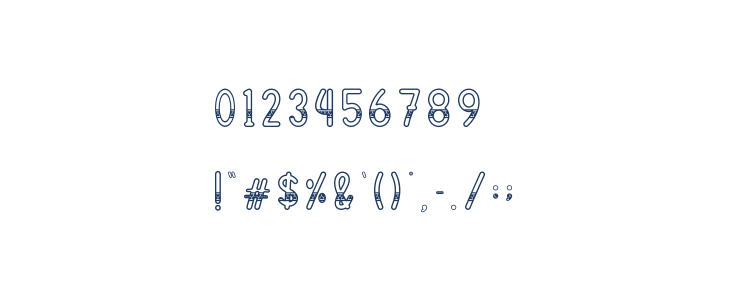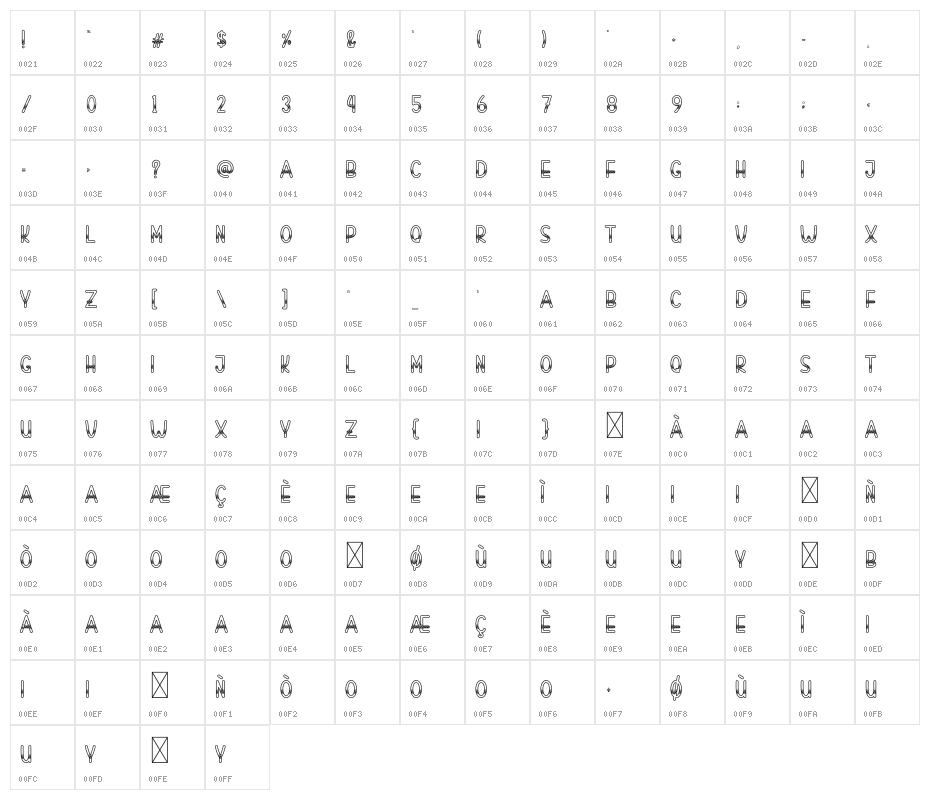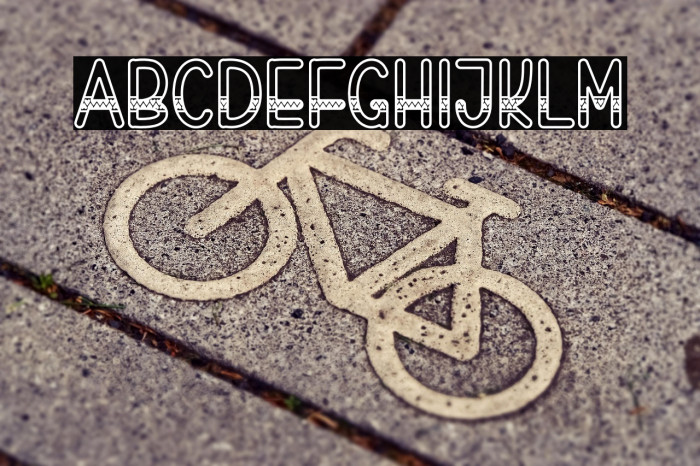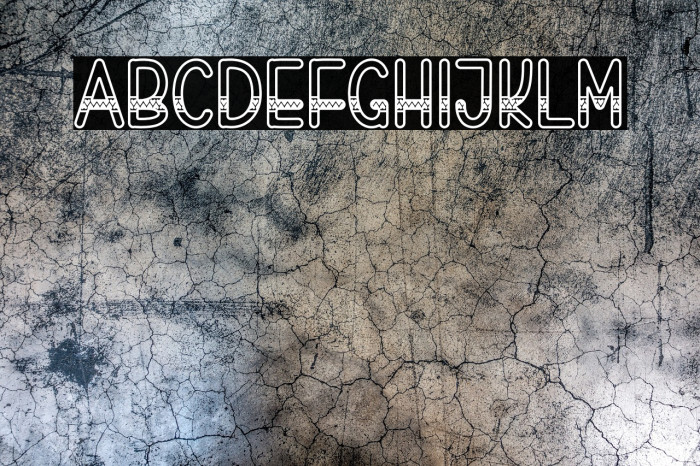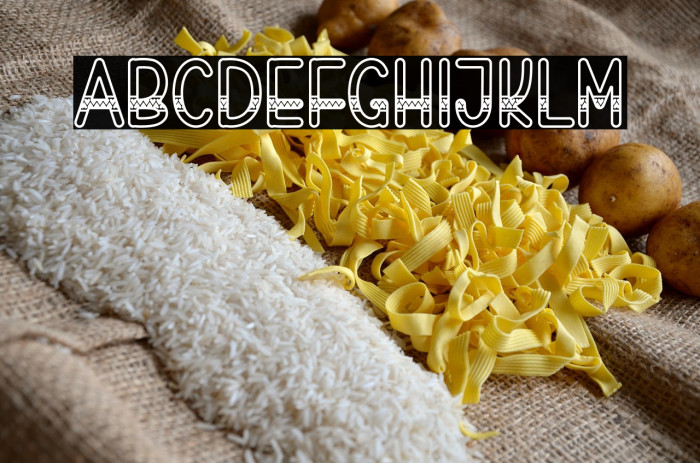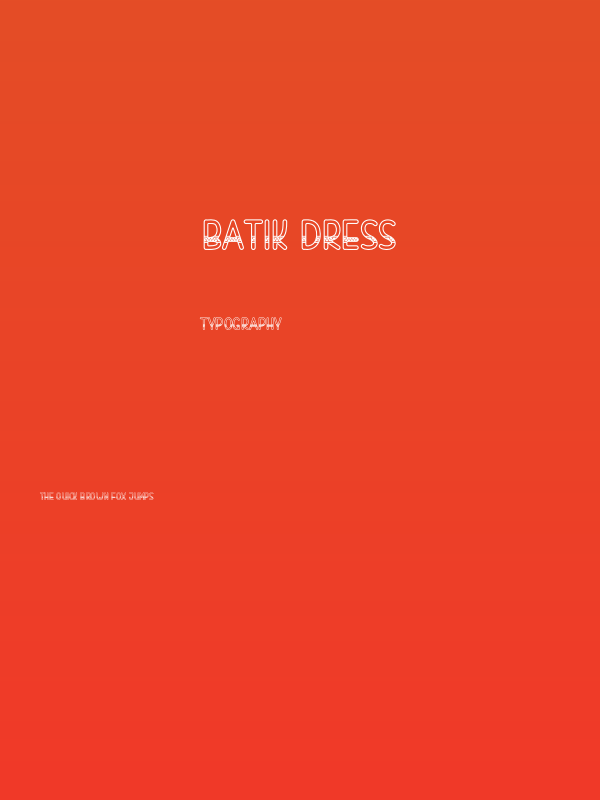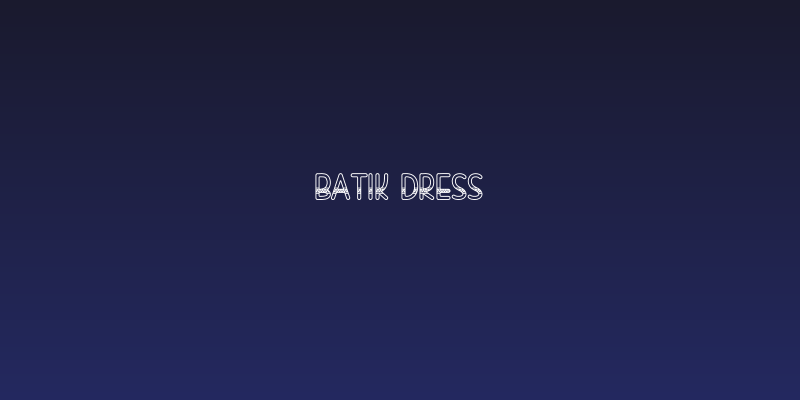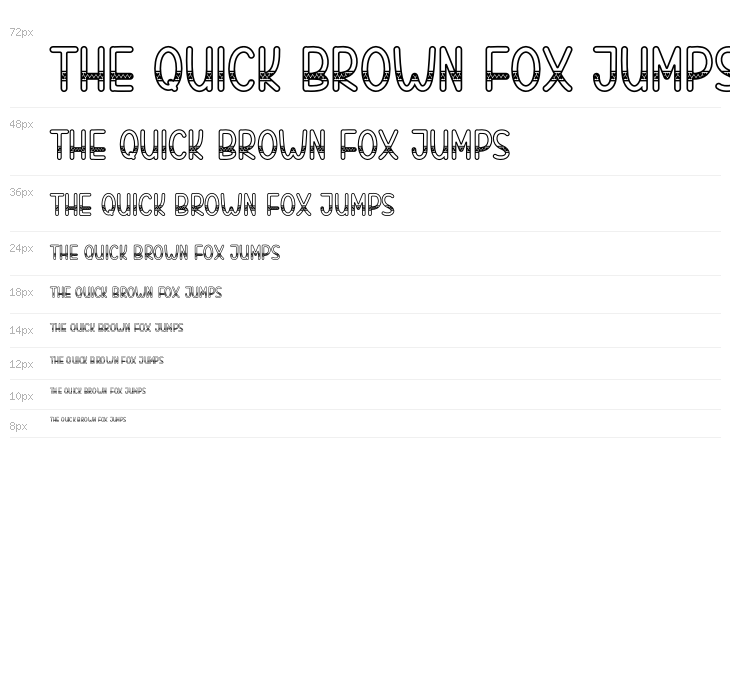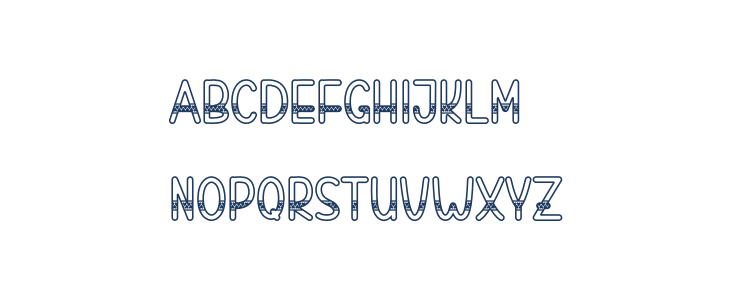
Batik Dress Font
Batik Dress Description
This font features a unique decorative style with intricate patterns embedded within each character. The uppercase and lowercase letters, along with numbers and special characters, exhibit a consistent design that combines traditional elements with a modern twist. The characters are outlined with a bold stroke, and the interior patterns add a sense of depth and texture. This font stands out due to its artistic flair, making it ideal for creative projects that require a distinctive visual impact.
| Proposed Projects | Ideal for branding, posters, invitations, and any project that benefits from a creative and artistic touch. |